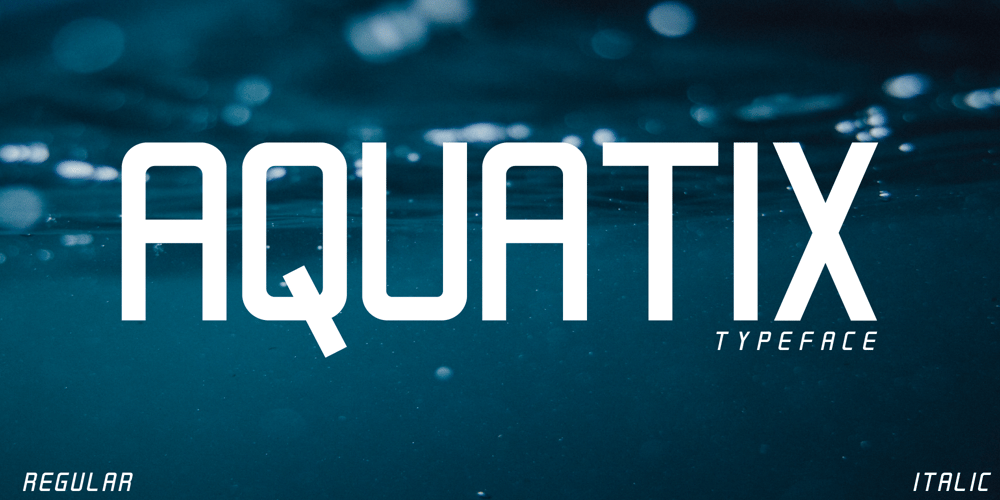
Aquatix
Aquatix font
Aquatix Font Family was designed by ryan creative and published by ryan creative. Aquatix contains 2 styles and family package options. Aquatix which has a simple and minimalist design. In this font, there are no serifs or extra lines that stand out at the ends of the letters, making them appear more defined and easier to read. Aquatix can be used in both modern and contemporary designs, and is suitable for use on a variety of media such as computer screens, display posters, magazines, typography and other digital media. so it is suitable for use in designs that require clarity and firmness in each letter.FEATURES;-Uppercase,-Support Foreign, Numbers and Punctuation-Regular, Italic.-Input Otf, ttf & Woff Files.-Works on PC.-Simple installation.-Accessible in Adobe Illustrator, Adobe Photoshop. Adobe InDesign, it even works in Microsoft Word.-Fully accessible without additional design software.Aquatix is ​​coded with Unicode PUA, which allows full access to all additional characters without having to design any special software. Mac users can use the Font book, and Windows users can use the Character map to view and copy any extra characters to paste into your favorite text editor/app.Thank you for visiting 😉